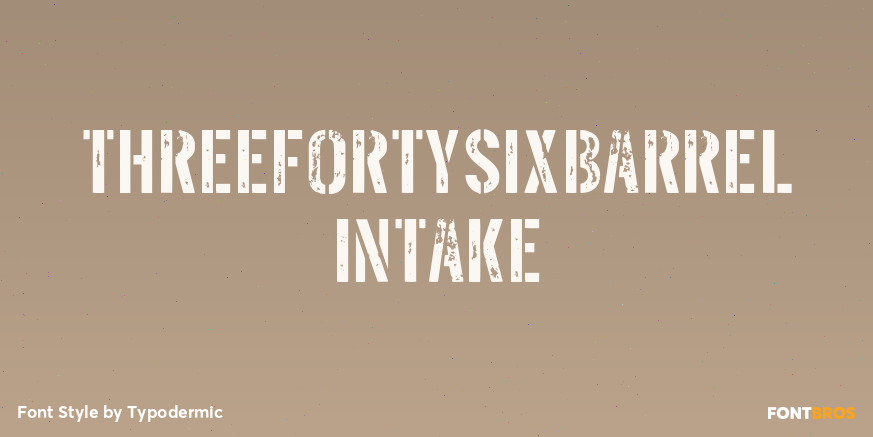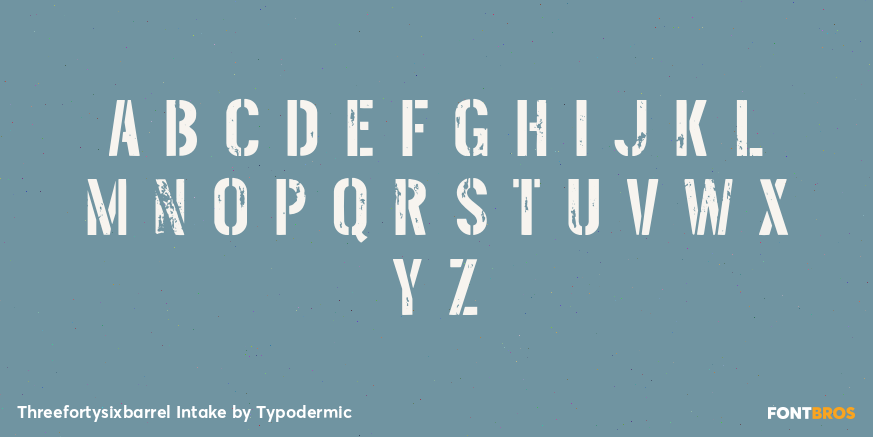
Threefortysixbarrel Intake
Buy NowThreefortysixbarrel Intake applies moderate wear to the family’s compact, factory-marking forms. Chips and scraped patches interrupt the clean stencil construction without destroying its strong silhouette, creating a useful middle state between Regular’s newly applied lettering and Exhaust’s heavily degraded surface.
Use Intake for restomod parts, workshop photography, heritage campaigns, race-event graphics, crate-engine packaging, dyno-shop signs, and component labels that should look handled rather than ruined. The restrained damage keeps model names and technical headings readable while adding enough material history to connect them with engine bays, shop floors, and working machinery.